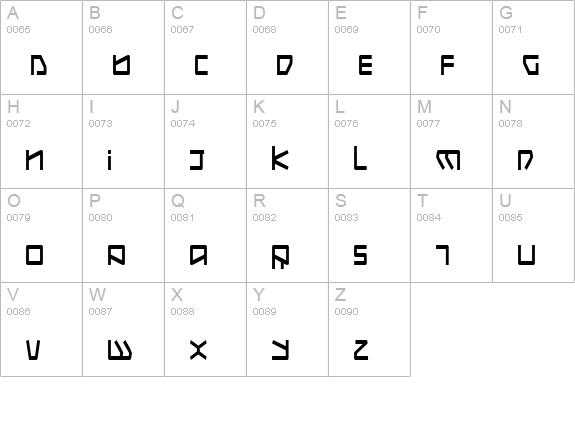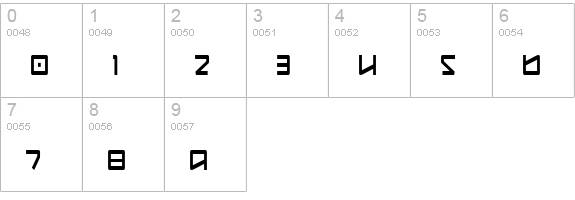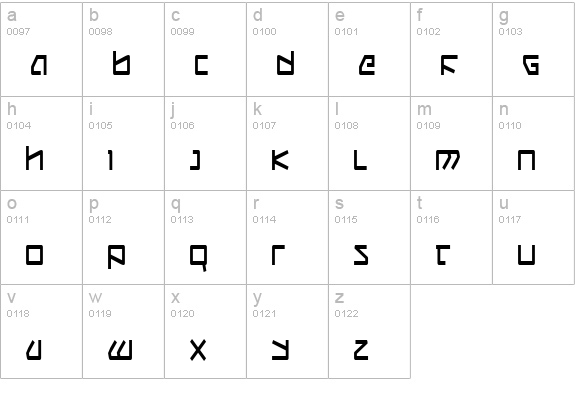
Kobold Condensed is a distinctive, condensed-width variant in the Kobold typeface family \xE2\x80\x94 well suited to design and typography projects.
Kobold Condensed font is a stylish and modern typeface that exudes charm and sophistication. With its clean lines and compact design, this font is perfect for a wide range of design projects, from branding to editorial design. The condensed style gives it a sleek and elegant look, making it a versatile choice for both print and digital applications. And the best part? Kobold Condensed font is completely free to download at FontsMarket.com. So whether you're a professional designer looking for a new font to add to your collection or a hobbyist looking to spruce up your personal projects, Kobold Condensed font has got you covered. Don't miss out on this fantastic opportunity to enhance your designs with this beautiful and free font.